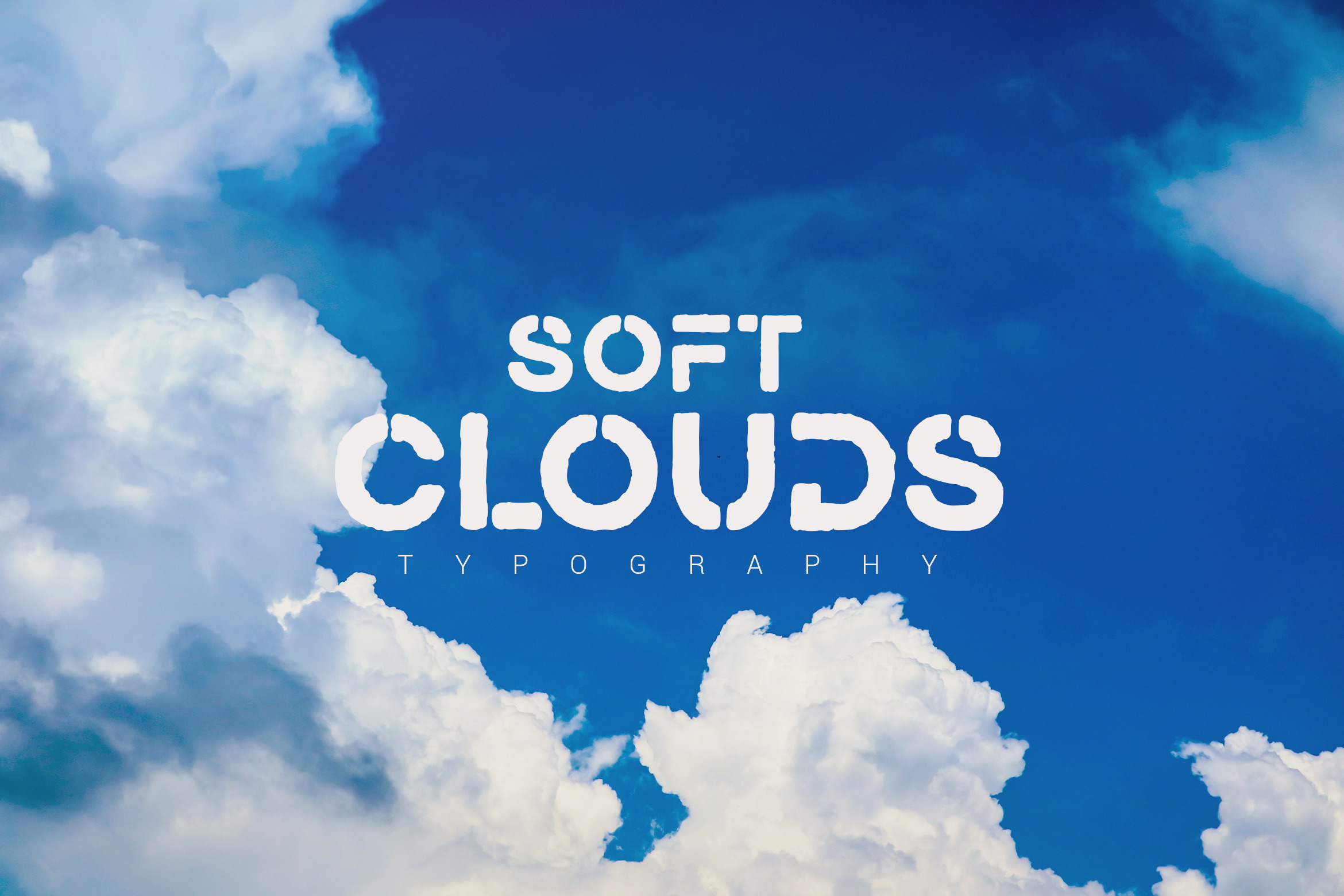
Soft Clouds Family Typeface
There are 3 matching fonts that work together great and will allow you to offer tremendous variation in your designs. The letters are very easy to read which makes this font suitable for both digital and print.